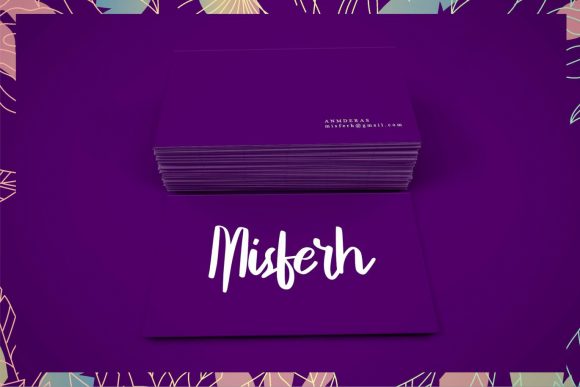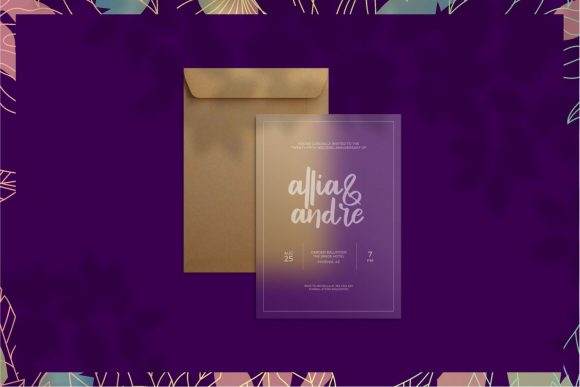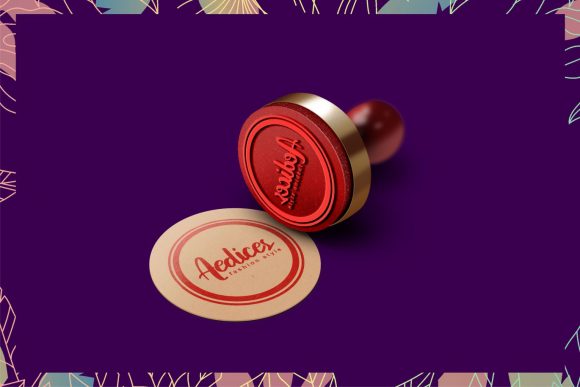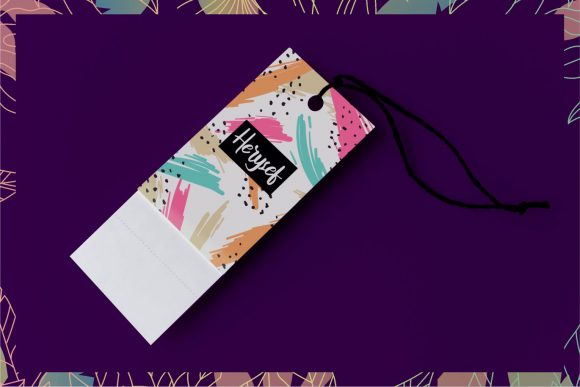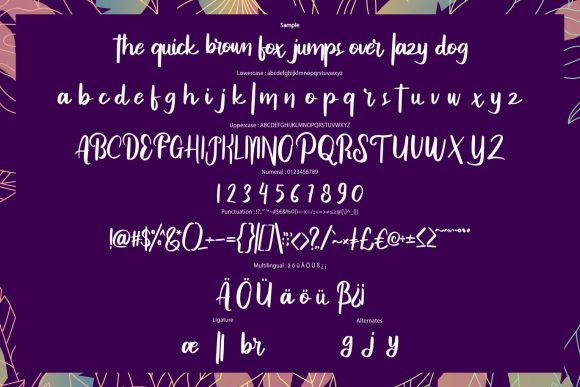
Introduction to Nebreta Font
Have you ever been brainstorming ideas for a creative project, only to be struck by the perfect combination of style and elegance? For designers, this moment is a game-changer, and it’s exactly what the Nebreta Font can bring to the table. This unique, bold, and elegant handwritten font is a design resource like no other, perfect for adding a personalized touch to your next project.
Whether you’re working on a wedding invitation, a thank you card, or a logo, the Nebreta Font is sure to elevate your design to the next level. With its high-quality design and transparent background, this font is a valuable asset for any designer looking to add a touch of sophistication to their work.
Key Features of Nebreta Font
- Nebreta Font is a high-quality, elegant script font suitable for creative projects and design resources.
- Comes in a single weight with a unique, flowing design that adds a touch of sophistication to any project.
- Perfect for use in wedding invitations, branding materials, and other creative projects that require a touch of elegance.
- Includes a full character set, including uppercase and lowercase letters, numbers, and punctuation marks.
Honest Review: Nebreta Font
As a designer, I’m always on the lookout for high-quality fonts that can elevate my creative projects. The Nebreta Font caught my attention with its sleek and modern design, making it a great addition to any design resource.
One of the things that works well with the Nebreta Font is its versatility. It comes in a range of weights, from light to bold, making it easy to use in a variety of contexts. The font also features a transparent background, which is perfect for creating a clean and minimalist look.
- ✨ Versatile design that works well in a range of contexts
- ✨ Transparent background for a clean and minimalist look
- ⚠️ Limited customization options
- ⚠️ Not suitable for complex or highly stylized designs
Overall, I’m impressed with the Nebreta Font. It’s a great design resource for anyone looking to add a modern touch to their creative projects. While it may have some limitations, its versatility and ease of use make it a solid choice for designers of all levels.
Tips for Getting the Most Out of Nebreta Font
To get the most out of Nebreta Font, use it with a transparent background to create a clean and modern design. Experiment with different font sizes and styles to add depth and visual interest to your project.
The Nebreta Font is ideal for creative projects such as logos, branding, and typography-based designs. It’s also great for use in presentations, documents, and social media graphics.
Alternatives to Nebreta Font
The Great Vibes Font is a high-quality, elegant script font perfect for creative projects requiring a touch of sophistication. It’s ideal for use in wedding invitations, branding materials, and other design elements where a refined look is desired. Great Vibes Font offers a more elegant feel compared to Nebreta Font, which has a more modern and bold appearance.